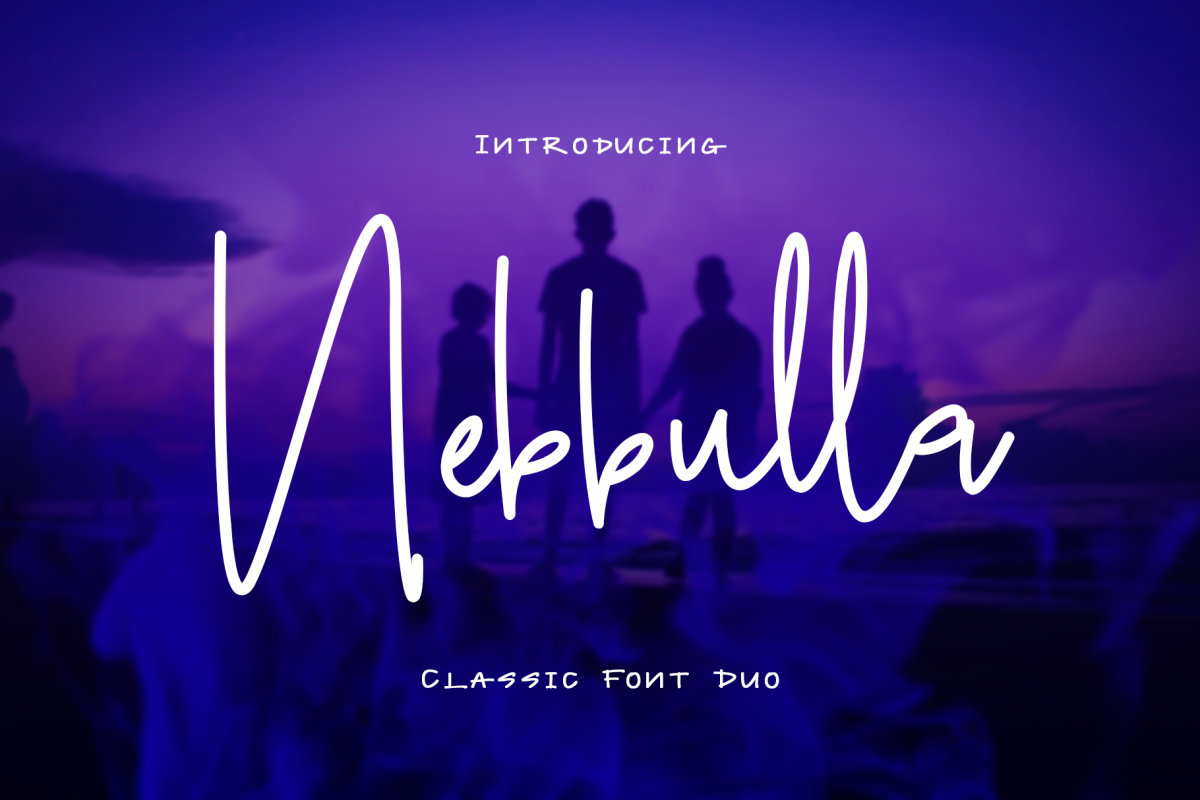
Nebbulla Font Duo
NebbullaSans
Nebbulla
Nebbulla is a font duo which gives an elegant classic touch to your projects.
Nebbulla font is to use for any kind of design such as branding projects, logos, wedding designs, social media posts, advertisements, product packaging, product designs, labels, photography, watermarks, invitation, stationery and any projects.
THE SCRIPT : In this font include Uppercase, Lowercase, Alternate Lowercase, Ligature, Numeral and Punctation, and multilingual support for this font
THE SANS : In this font include Uppercase, Lowercase, Numeral and Punctation, and multilingual support for this font